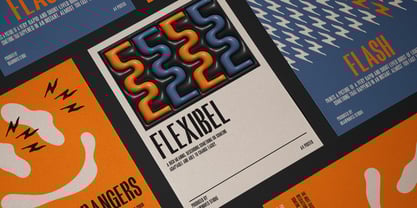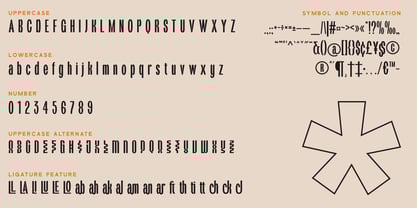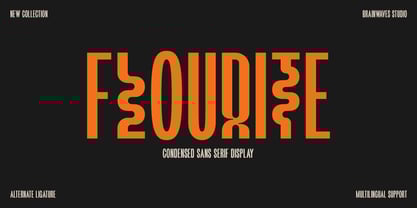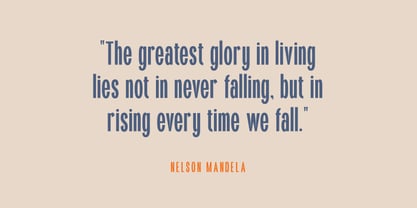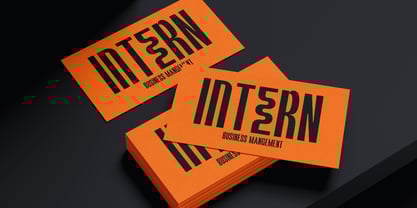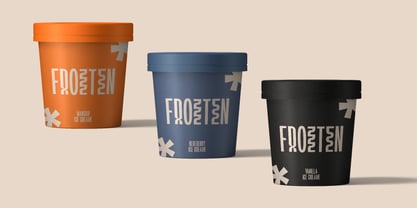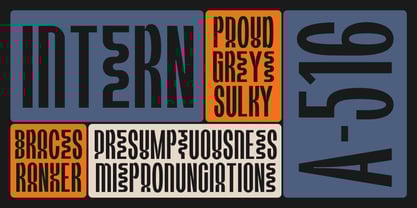
Flourite
by Brainwaves Studio
The Flourite Font Family was designed by Lucky Fitriadi and published by Brainwaves Studio. Flourite contains 2 styles and family package options.
Flourite is a bold, modern, and striking display sans serif with a fun and flexible touch. Its condensed design exudes a futuristic and edgy vibe, making it perfect for branding, posters, editorials, and experimental designs that demand attention.
What Makes Flourite Unique?
• Full Character Set - Includes uppercase, lowercase, numbers, and symbols, offering complete creative freedom.
• Unique Alternates & Ligatures - Featuring signature wave-like curves, adding a dynamic, expressive, and playful touch.
• Multilingual Support - Ready to be used across different languages without limitations.
• Modern & Fun - A perfect blend of bold design and artistic accents, making it versatile for various design needs.
• Great for Multiple Projects - Ideal for branding, experimental design, editorials, logos, and posters.
What truly sets Flourite apart is its unique uppercase alternates with distinctive wave-like curves. These decorative elements not only enhance its artistic appeal but also create a dynamic, fun, and modern look. This combination makes Flourite highly versatile and flexible, seamlessly fitting into a wide range of creative projects—from bold and serious designs to expressive and playful ones.
With its full character set and unique ligatures, Flourite is the perfect choice for designers who want to add a distinctive and standout touch to their work. Go bold and get creative with Flourite!
Designers: Lucky Fitriadi
Publisher: Brainwaves Studio
Foundry: Brainwaves Studio
Design Owner: Brainwaves Studio